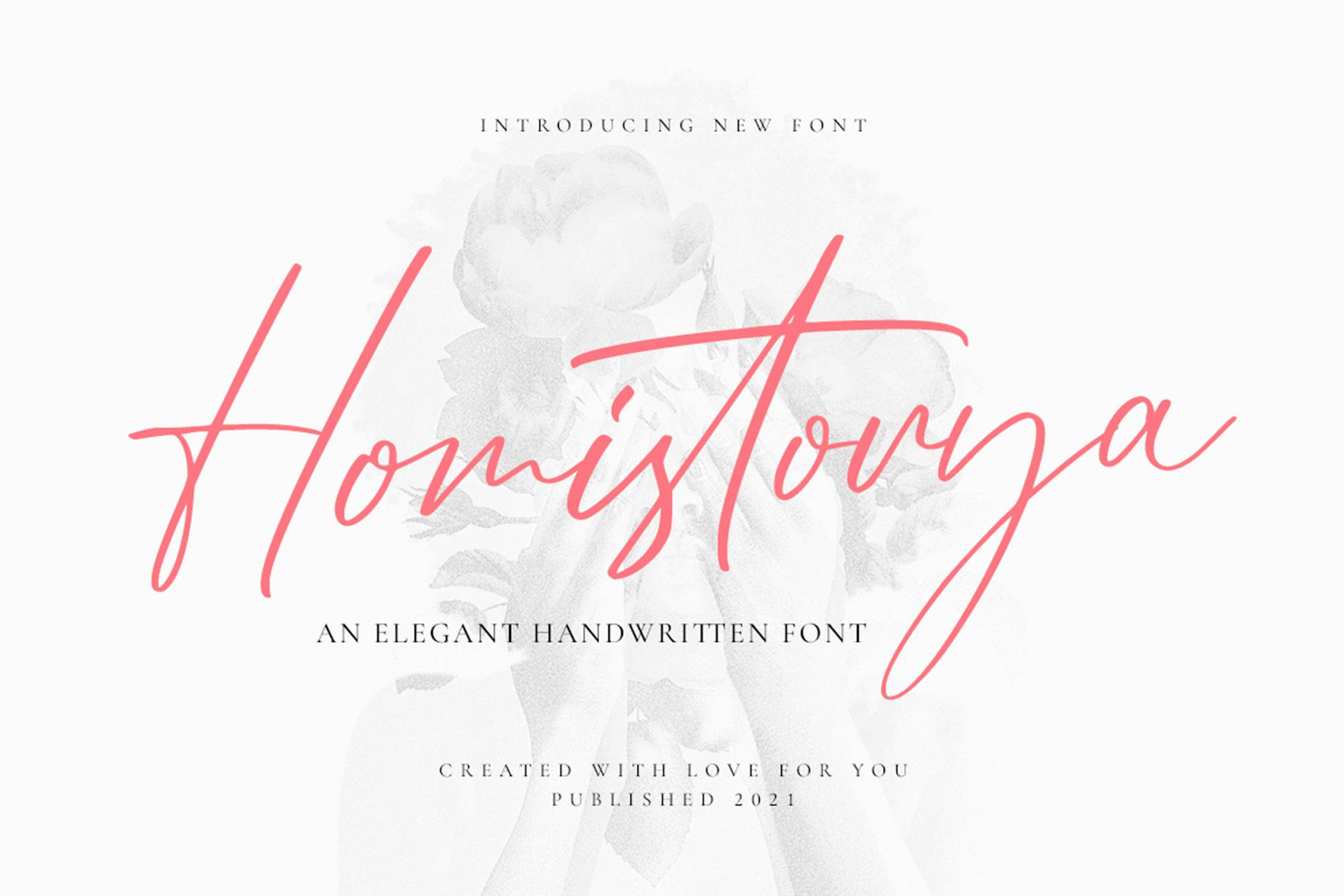
Homistorya - Wedding Font
The Homistorya - Wedding Font excels in storytelling design applications including narrative wedding invitations, story-based bridal branding, tale-inspired ceremony logos, narrative product packaging, storytelling business cards, tale portfolios, narrative greeting cards, story social media graphics, tale event signage, and storytelling marketing materials. Its narrative script style makes it perfect for projects requiring storytelling elegance that communicates tales and establishes narrative brand positioning with audiences seeking story-driven wedding experiences and tale-telling sophistication.
What makes the Homistorya - Wedding Font genuinely exciting is its exceptional ability to capture the narrative beauty and storytelling charm of tale-driven weddings through narratively crafted letterforms. The font features flowing, story-inspired strokes with narrative flourishes and tale proportions that create a distinctly storytelling appearance. Each character displays remarkable attention to narrative detail with storytelling curves, tale connections, and narrative spacing that give text a beautifully story-driven, hand-lettered quality. The font's narrative character and storytelling rhythm create an atmosphere of tale elegance while maintaining narrative sophistication and wedding authenticity.
The Homistorya - Wedding Font family typically includes regular weight with extensive character coverage, featuring uppercase and lowercase letters, numerals, punctuation marks, and international characters. The typeface often incorporates stylistic alternates, contextual ligatures, and narrative swashes that enhance its signature storytelling. These additional elements provide designers with creative flexibility to customize text appearance and achieve more natural-looking tale handwriting that reflects the font's narrative and storytelling character.
This storytelling signature font distinguishes itself through its remarkable balance of narrative charm and sophisticated elegance. Unlike simple or plotless fonts that lack storytelling appeal, Homistorya - Wedding Font embraces the power of narrative design to create tale connections with story-loving wedding audiences. The font's storytelling character makes it essential for narrative wedding planners, tale brands, and story celebration businesses where creating narrative wedding experiences and storytelling memories is fundamental to success in tale-driven wedding markets.